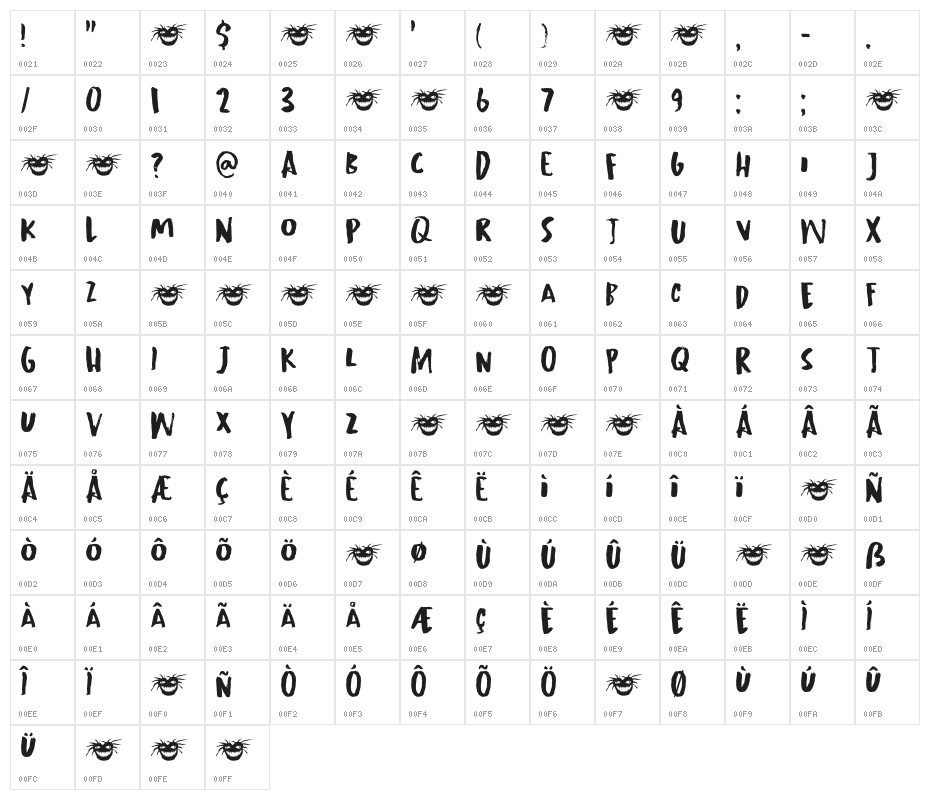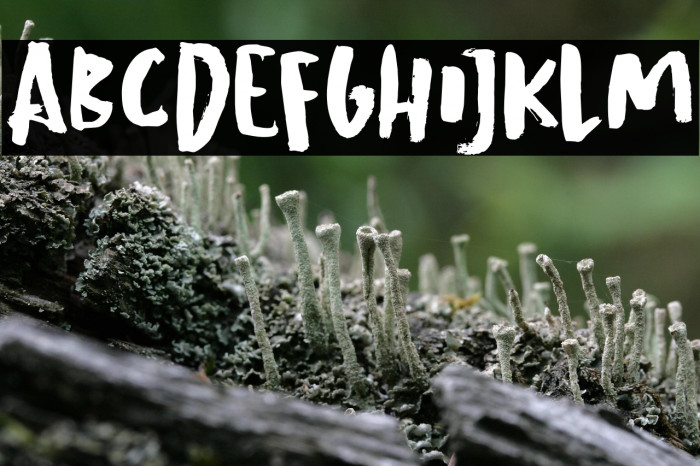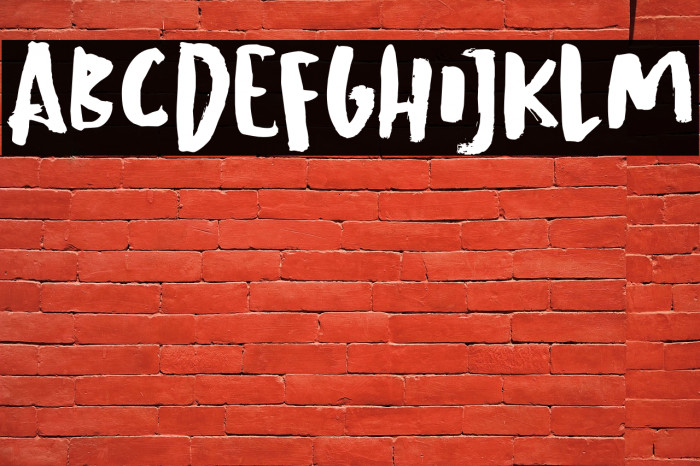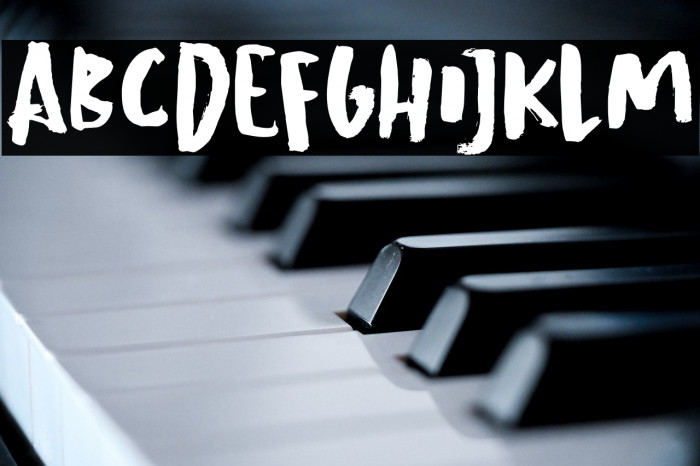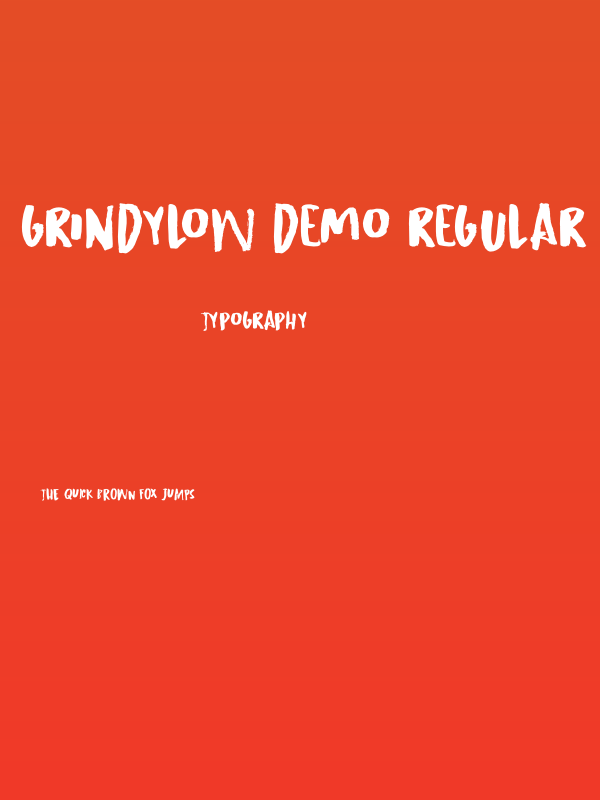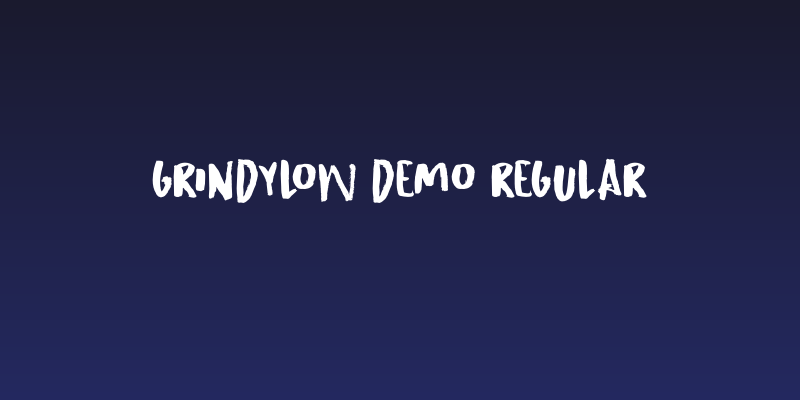
Grindylow DEMO Regular Font
Grindylow DEMO Regular Description
This font features a bold and expressive brush style, characterized by its rough, hand-painted appearance. The strokes are uneven and dynamic, giving it a raw and energetic feel. The uppercase and lowercase letters maintain a consistent style, with exaggerated curves and angles that emphasize its artistic flair. The numbers and special characters follow the same aesthetic, adding to its cohesive look. This font is perfect for projects that require a strong, impactful visual presence, such as posters, album covers, or branding for edgy and creative industries.
| Proposed Projects | Ideal for posters, album covers, edgy branding, and creative industry designs. |